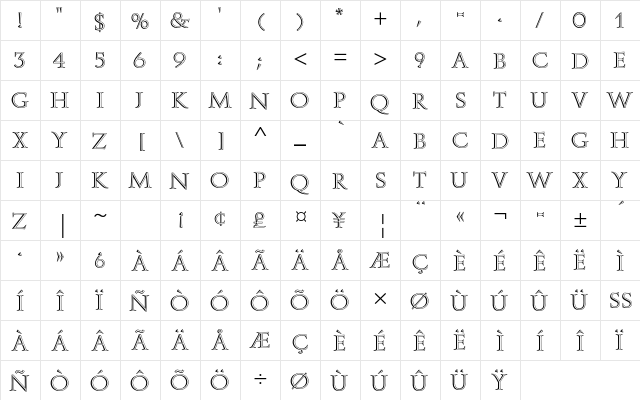
Augustea Open Std Regular
| Designer | Aldo Novarese |
Design Context for Augustea Open Std Typeface
Augustea Open Std is a composed and adaptable typeface that performs quietly and consistently across a wide range of design contexts.